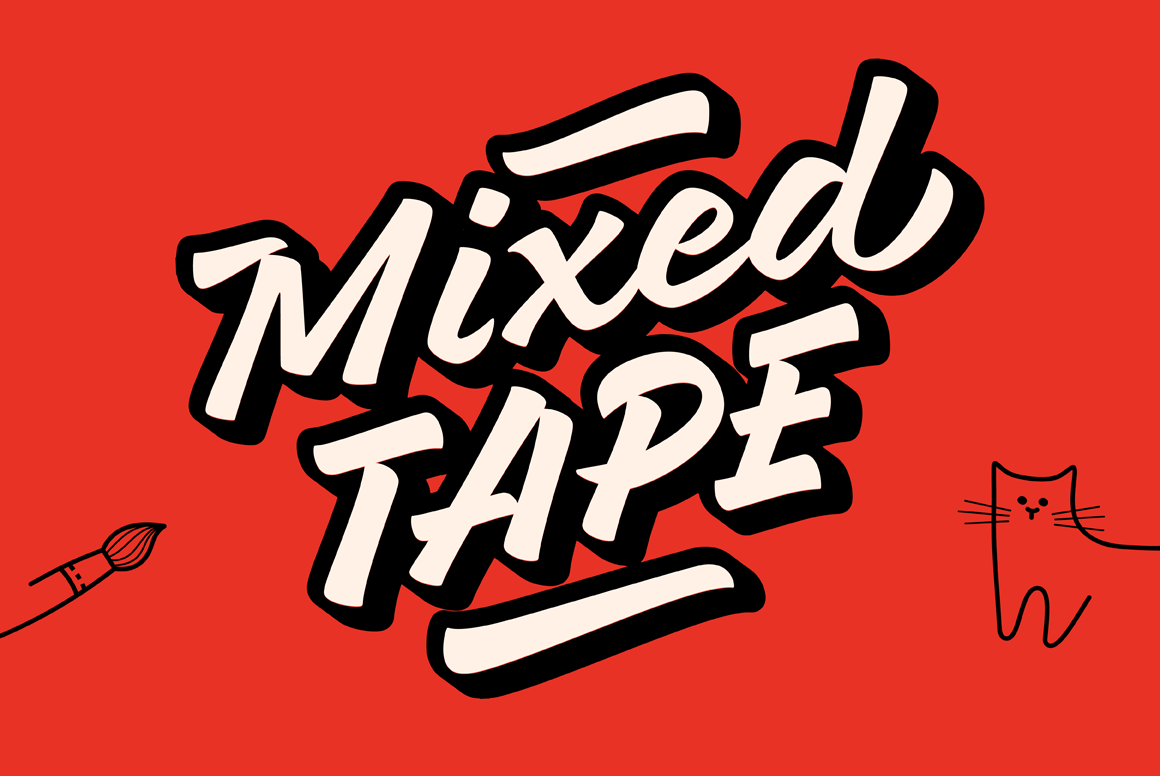
Mixed Tape is a brush typefamily inspired by music and based on calligraphy. It has 2 Styles: Mixed Tape Regular is a casual neutral brush script and Mixed Tape Capitals is an energetic, probably even brutal brush script.
- Mixed Tape Regular
- Mixed Tape Capitals
You can use Mixed Tape for posters, prints, menus, packaging, book covers and headlines, cards and as a starting point for logotypes. Mixed Tape has a lot of alternates and ligatures which are built into the ‘Liga’ feature that is turned on by default. It also has swashes, titles, fractions, ordinals and case sensitive forms and includes multilingual support.
Let’s all enjoy good music and typography!